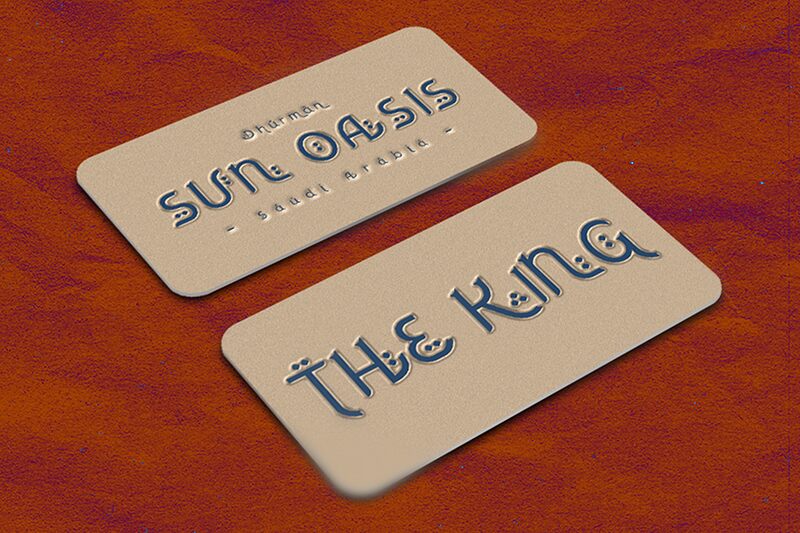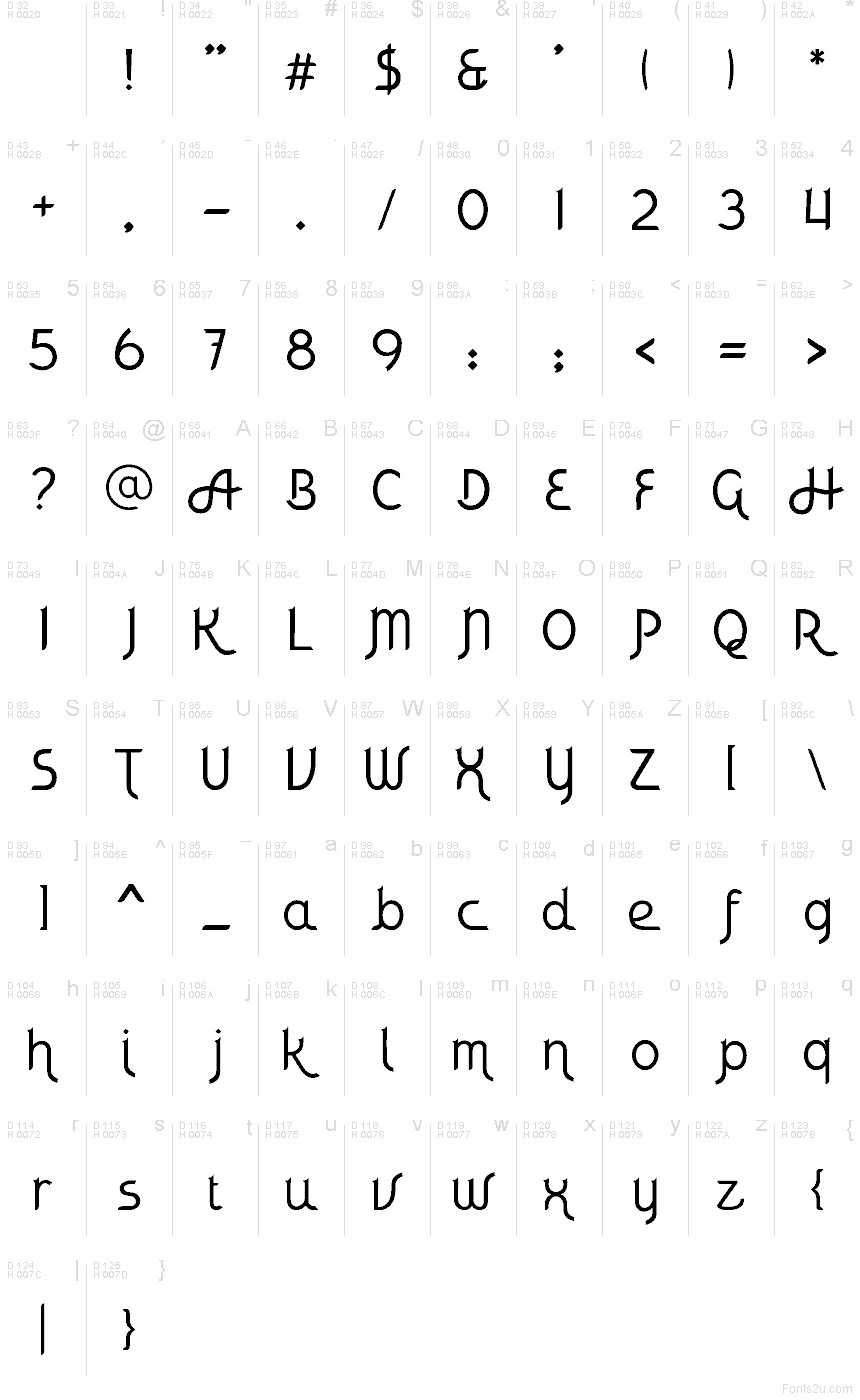
CF Dhurman Regular
CF Dhurman font by Indotype Foundry is a free faux Arabic decorative typeface that gives Latin letters a flowing, calligraphic twist. The strokes curl and taper like ink pulled by a brush, with gentle hooks and arches that suggest handwritten signage in a bustling bazaar. It feels exotic yet readable, with a steady rhythm that keeps words from turning into visual noise.
Using CF Dhurman, this free font shines on restaurant logos, hookah bar branding, themed menus, event posters, book covers, and packaging that needs a Middle Eastern-inspired flair. It works beautifully as a headline voice while a simple geometric sans handles supporting text. Try it large with generous spacing so those curved strokes and ornamental endings can really breathe.